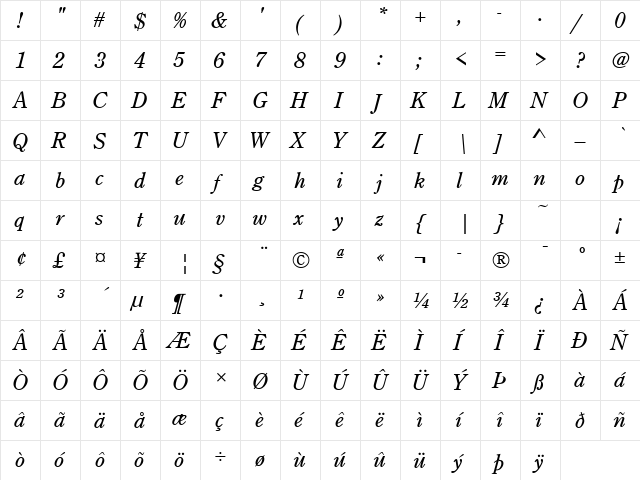
CenturyOldStyT Italic
Design Context for CenturyOldStyT Typeface
CenturyOldStyT is a composed and adaptable typeface that performs quietly and consistently across a wide range of design contexts. The slanted form adds forward momentum and visual energy.